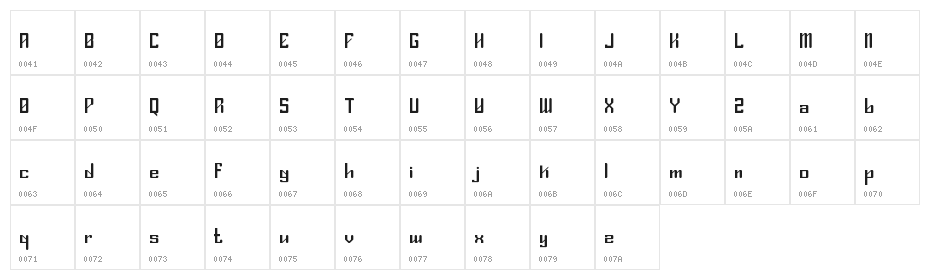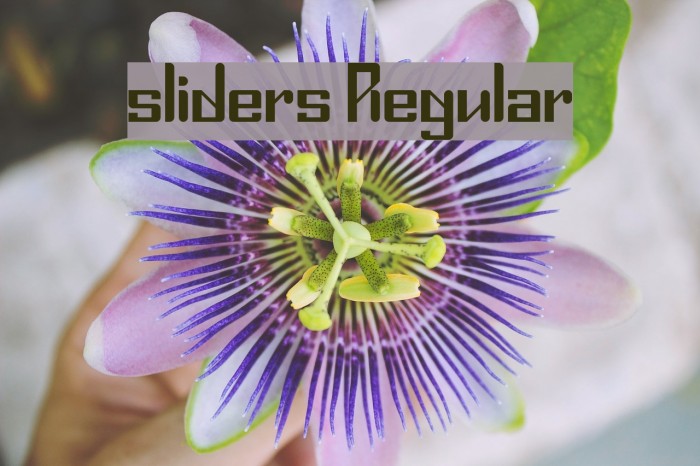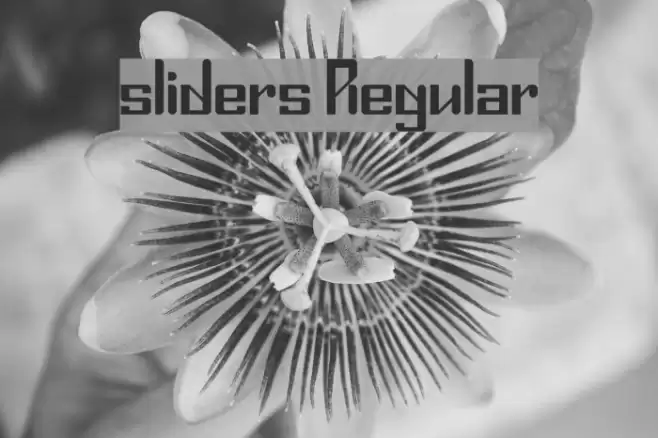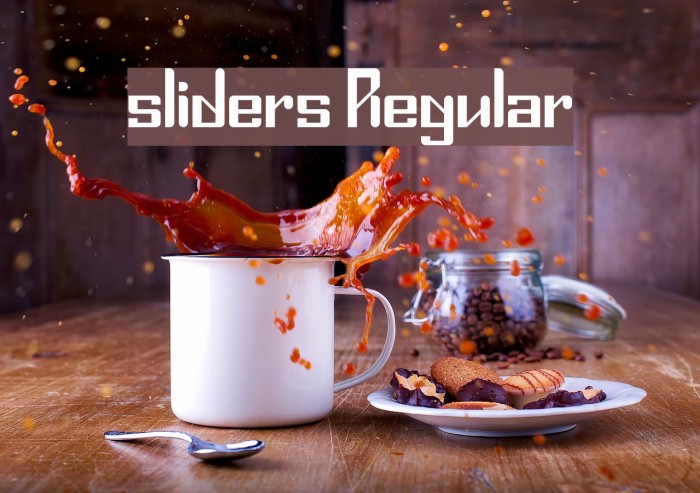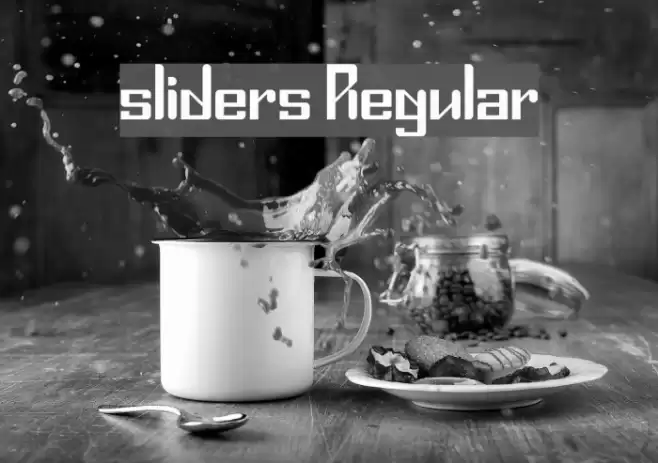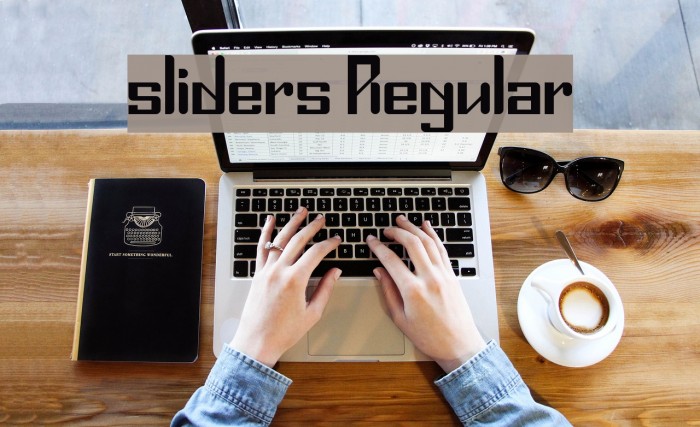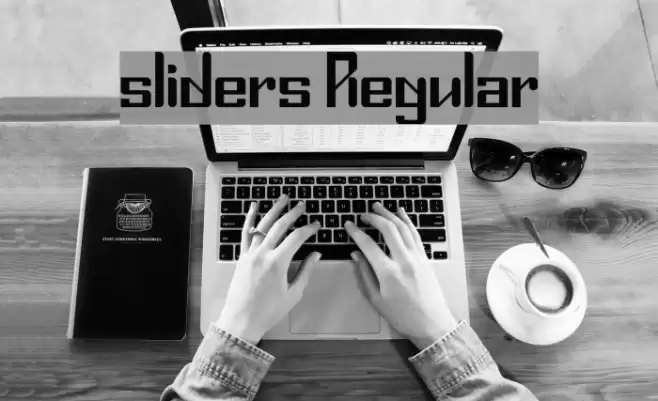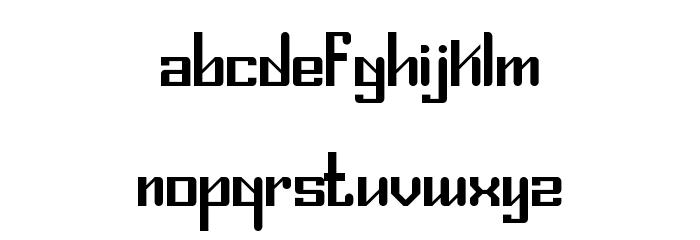
sliders Regular Font
sliders Regular Description
This font features a bold, geometric design with sharp angles and a futuristic aesthetic. The uppercase letters are uniform in height, creating a cohesive and structured look. The lowercase letters maintain the angular style, providing a unique contrast with their more compact forms. The numerals are consistent with the overall geometric theme, offering a modern and edgy appearance. Special characters are designed to match the bold and angular style, ensuring visual harmony across all elements. This font is ideal for projects that require a modern and striking visual impact.
| Proposed Projects | Ideal for sci-fi themed designs, technology branding, video game titles, and modern posters. |